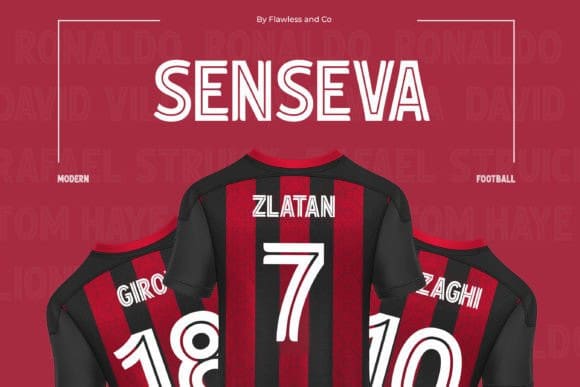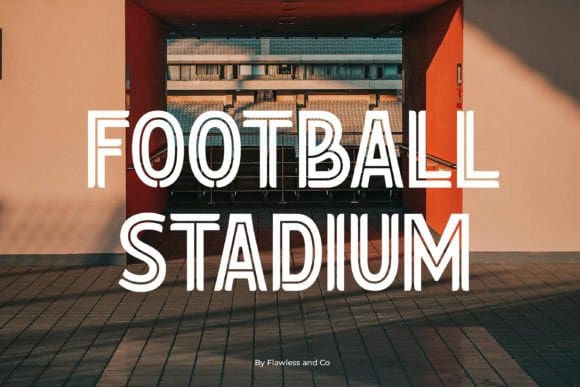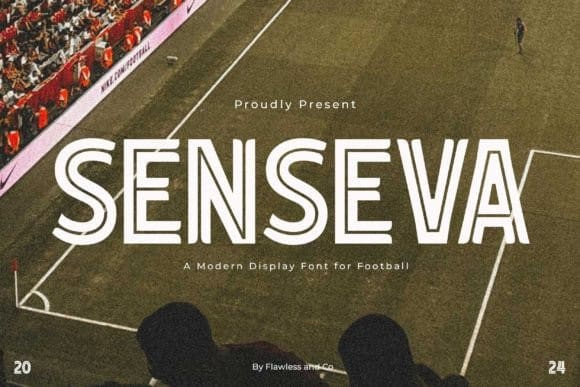
Senseva Display Font
Senseva Display Font a sports football font designed to capture the dynamic energy and excitement of the game. With its bold and athletic letterforms, Senseva is perfect for sports branding, team jerseys, posters, and more, ensuring your designs stand out with a powerful and energetic presence.